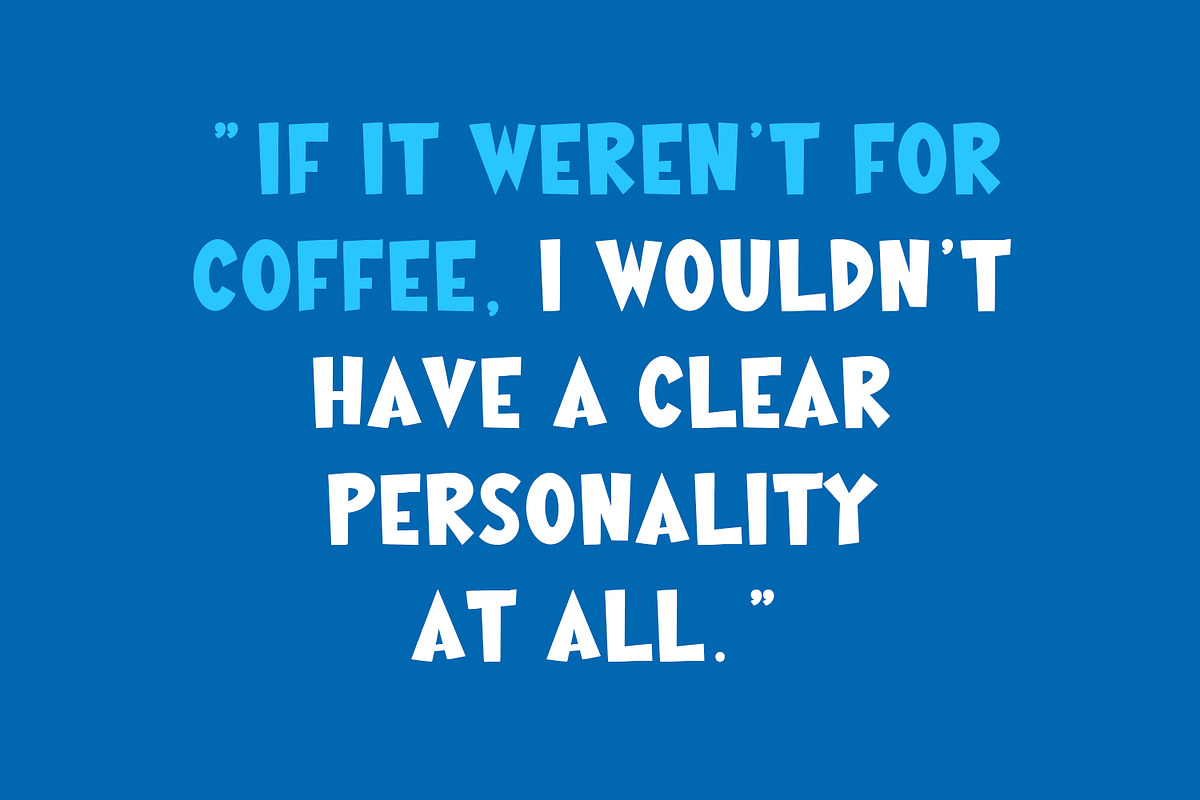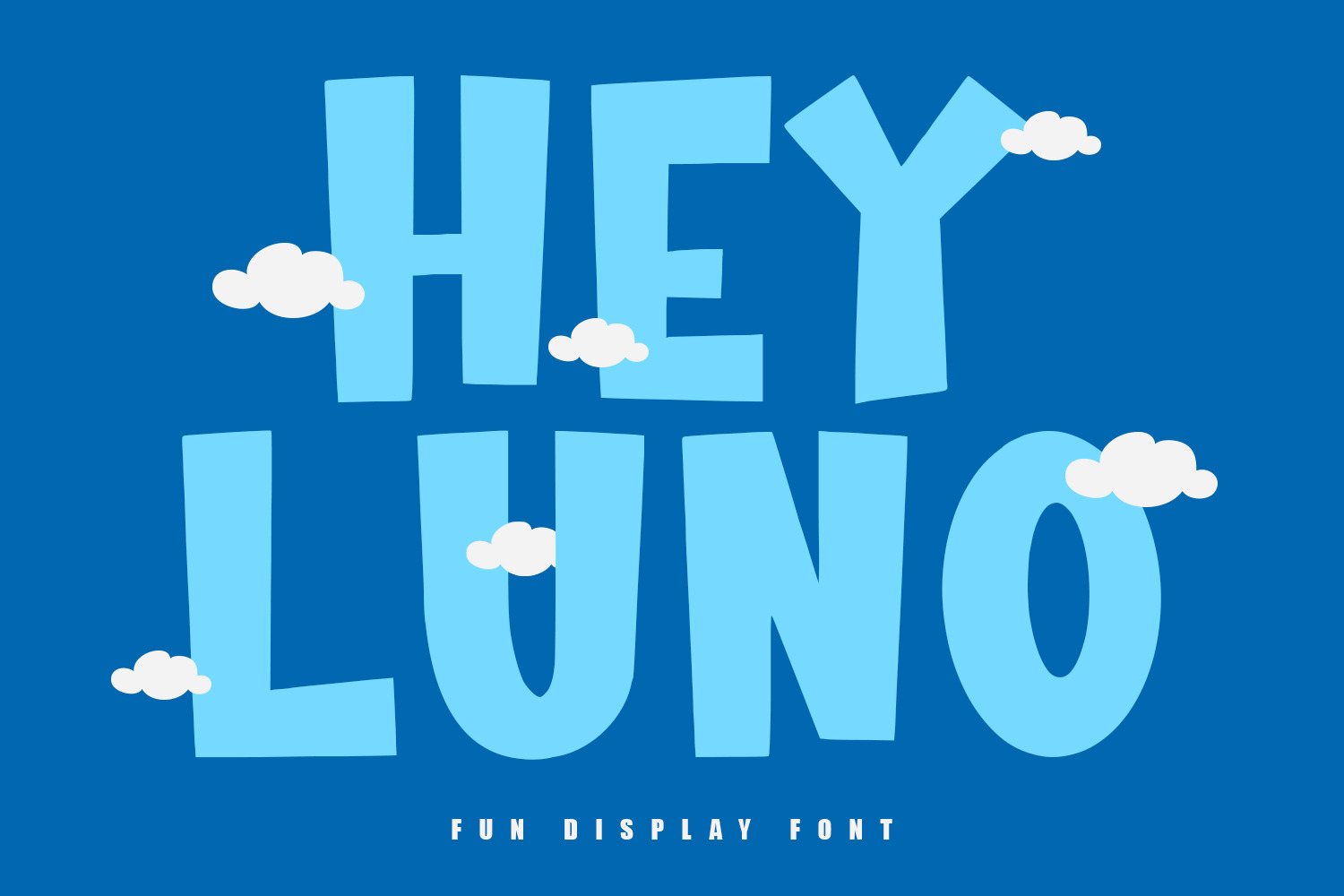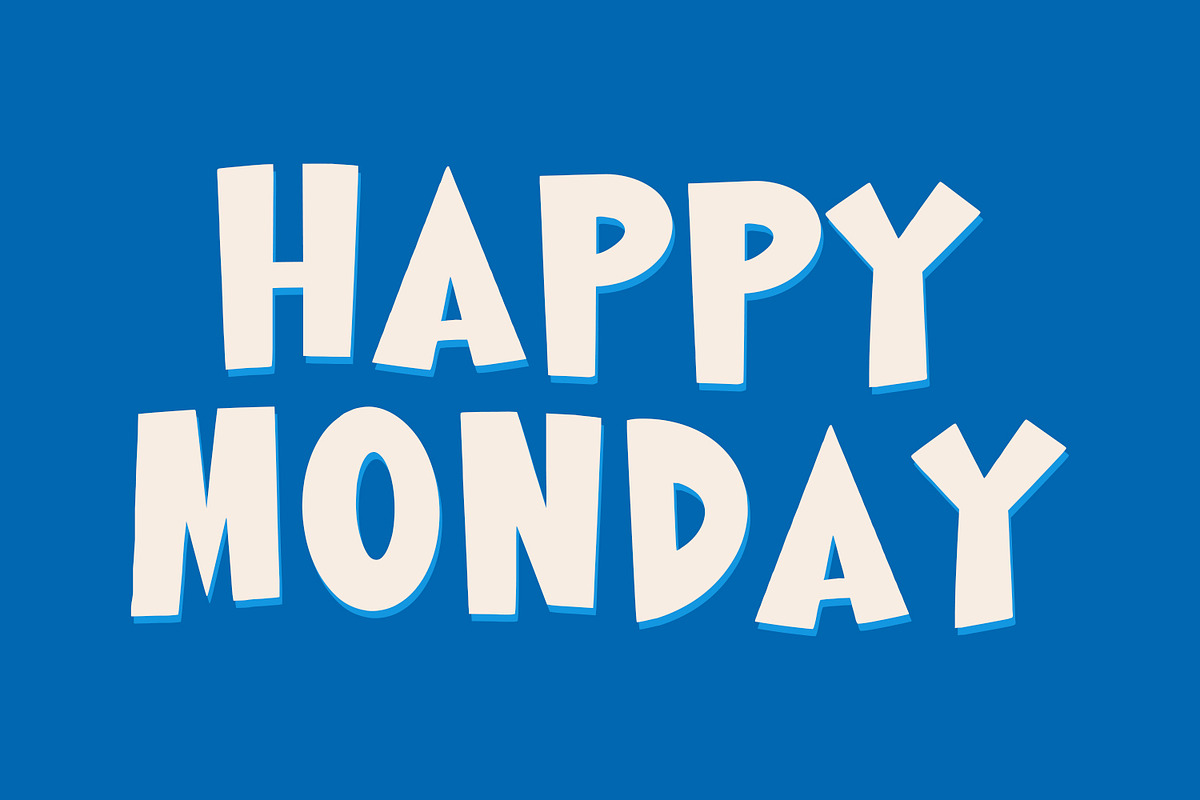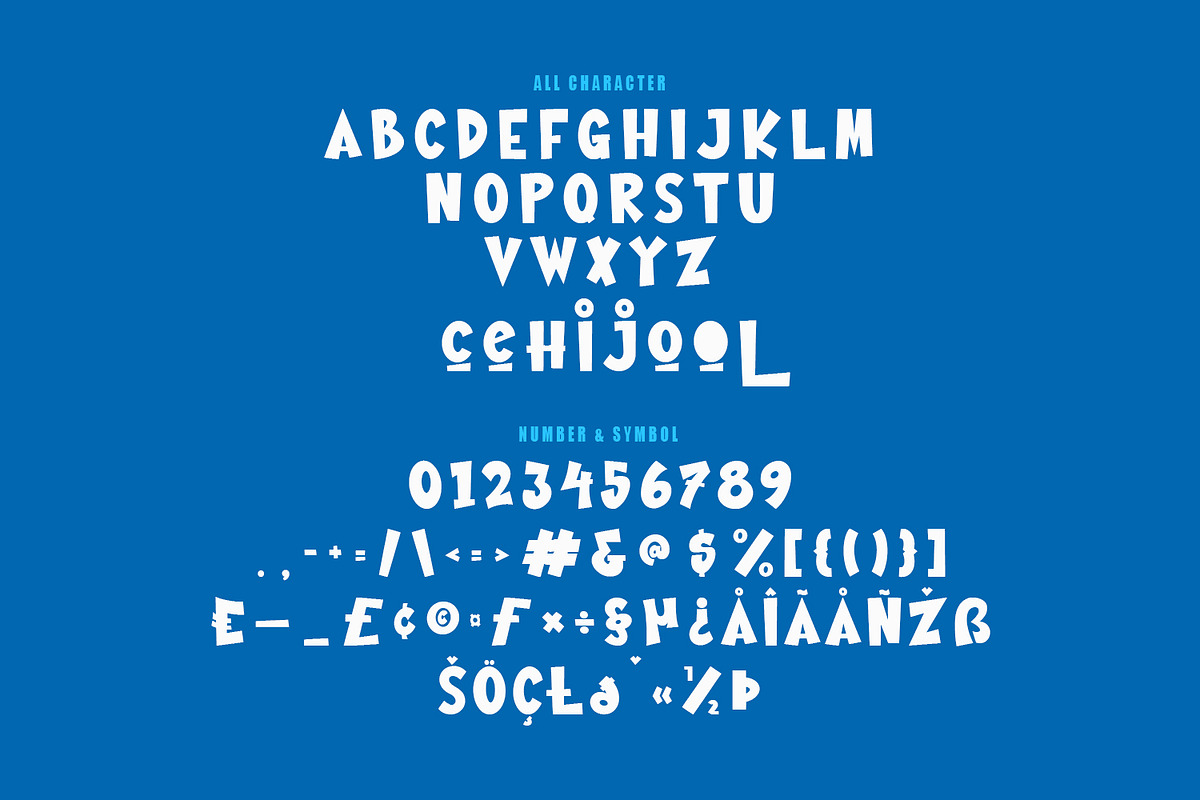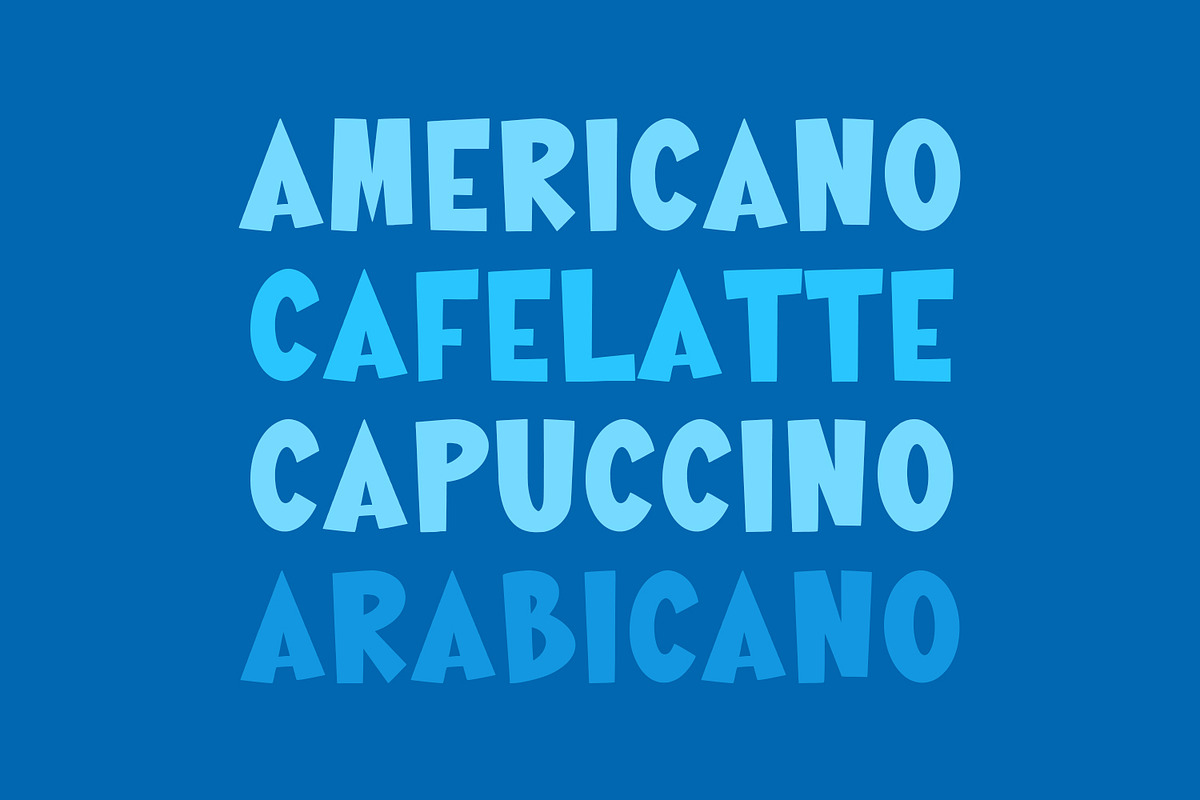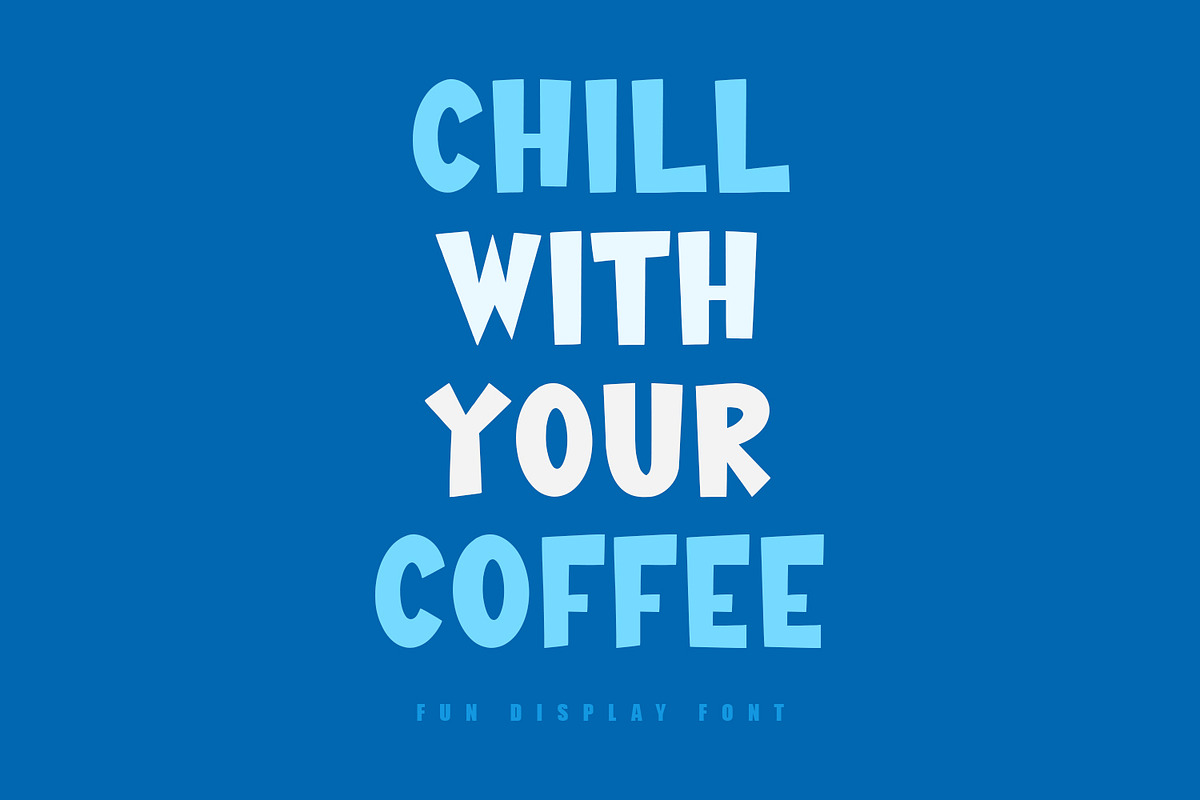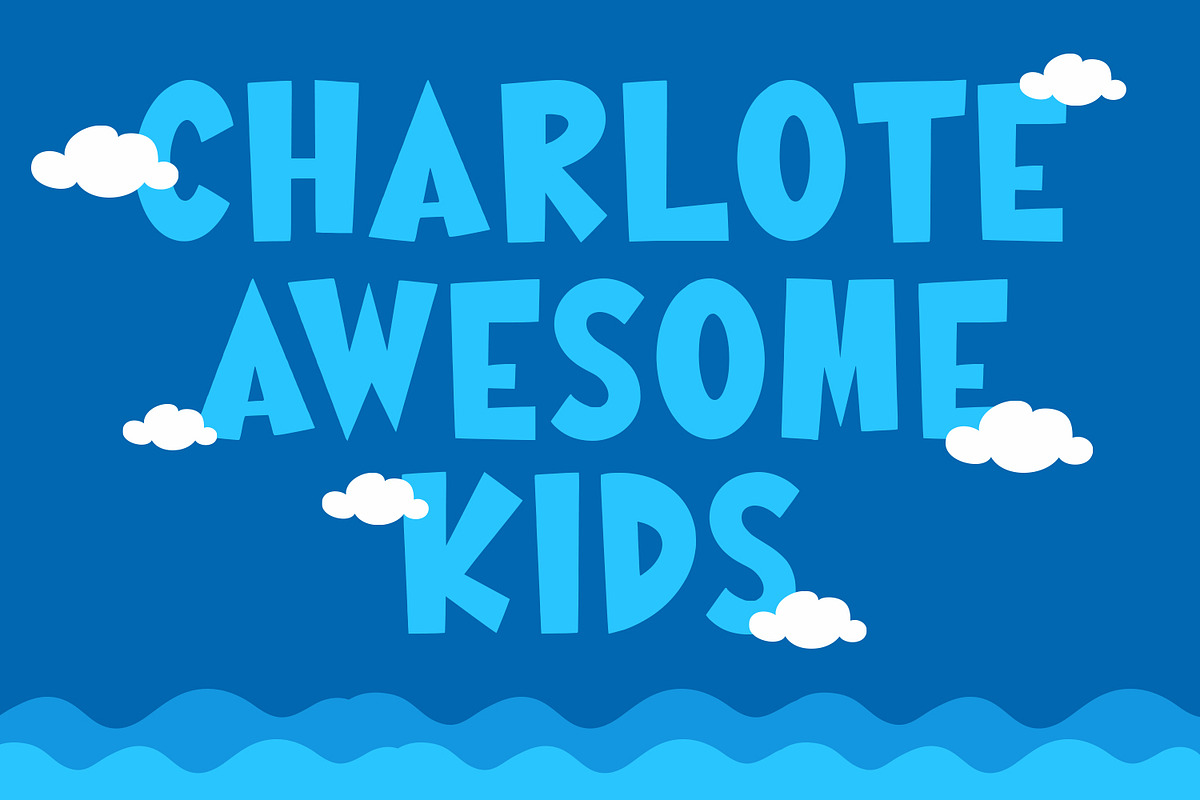
Hey Luno Fun Cartoon Font
Hey Luno fun cartoon display font, fun character with alternates to give you an extra creative work. Hey Luno fun cartoon display font support multilingual language.